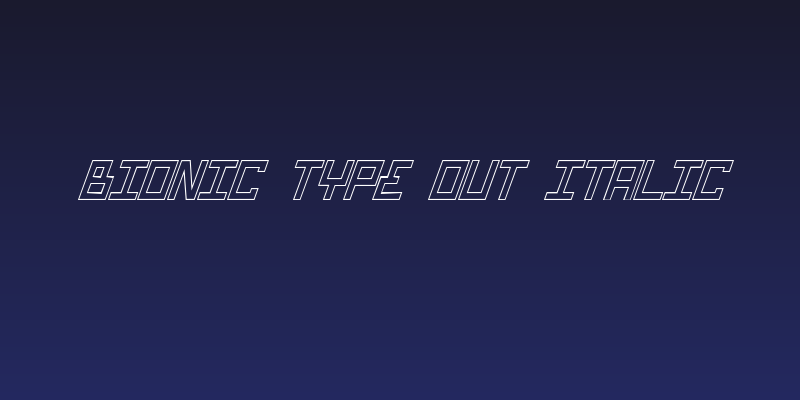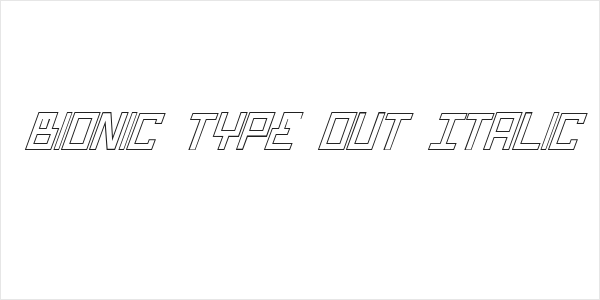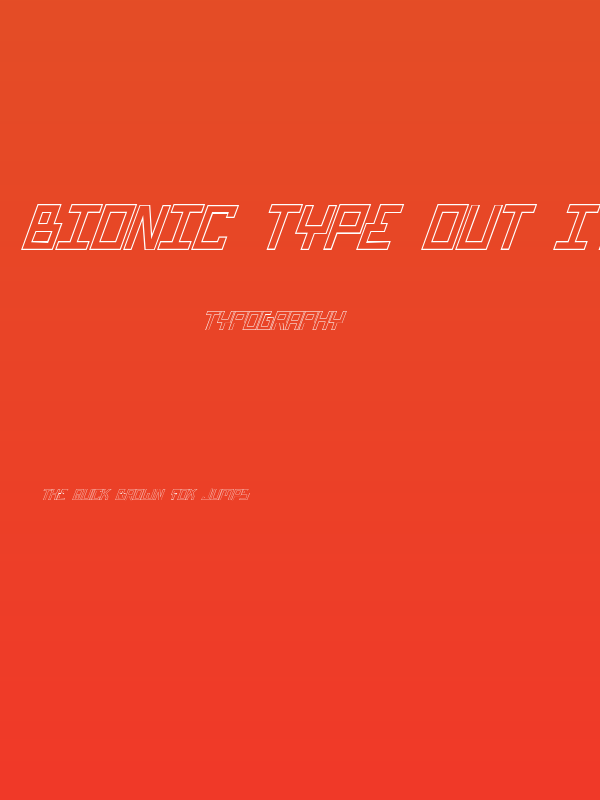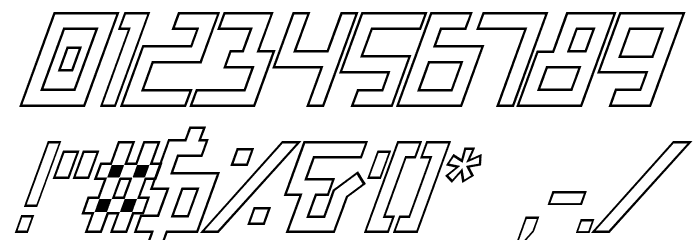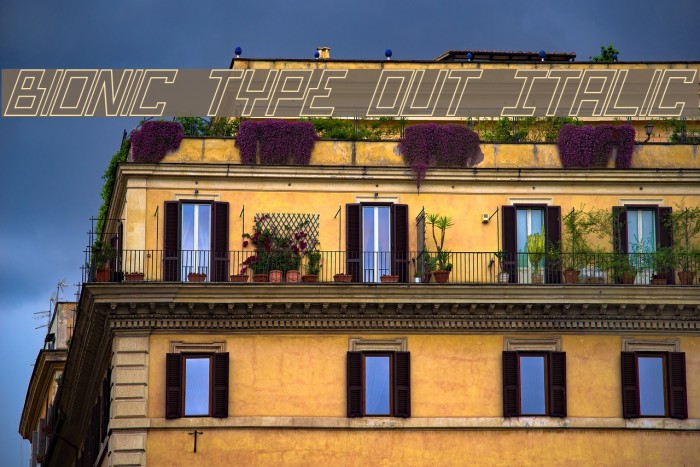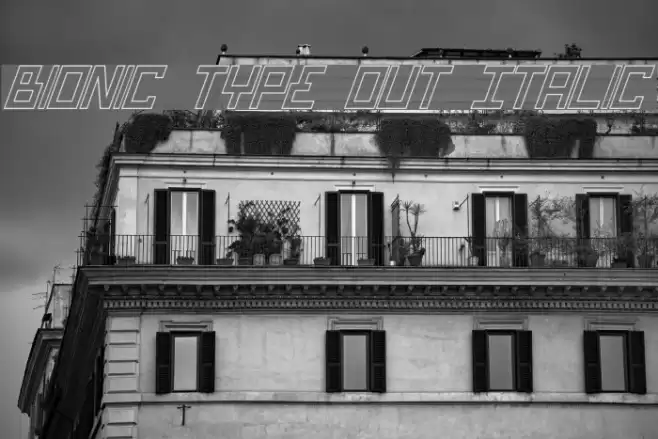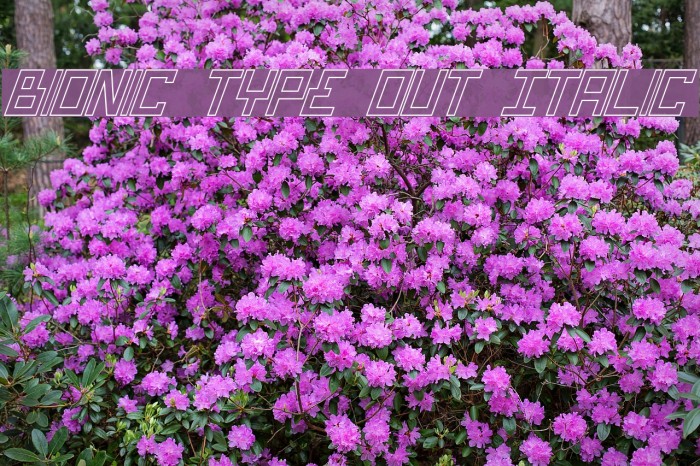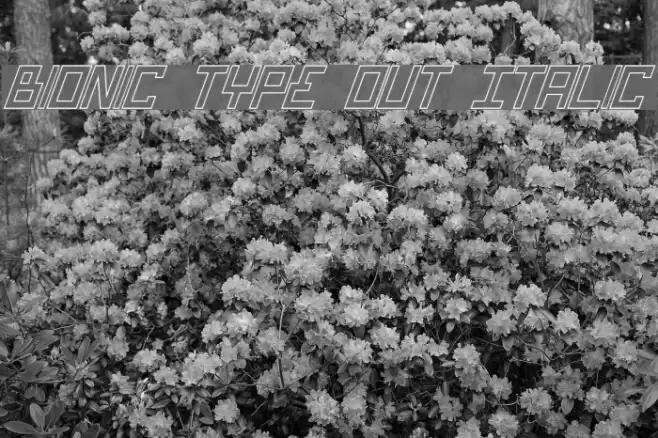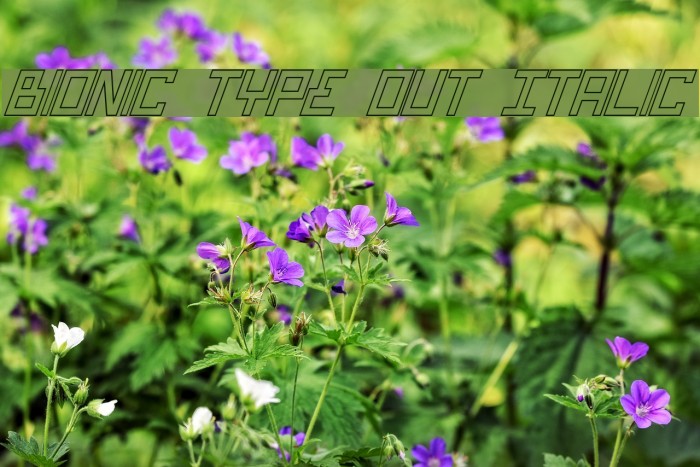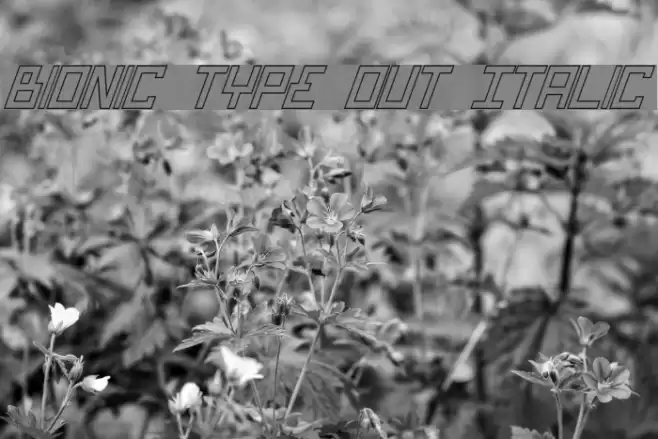
Bionic Type Out Italic Font
Bionic Type Out Italic Description
This font features a futuristic and angular design, characterized by its geometric and sharp-edged letterforms. The characters are outlined, giving them a hollow appearance that enhances their modern and tech-inspired aesthetic. The italic slant adds a dynamic and forward-moving feel, making it ideal for projects that require a sense of speed or innovation. The uppercase and lowercase letters maintain a consistent style, with uniform stroke widths and a distinct, mechanical look. The numerals and special characters follow the same design principles, ensuring a cohesive appearance across all text elements.
| Proposed Projects | Ideal for technology branding, sci-fi posters, video game titles, and futuristic-themed designs. |